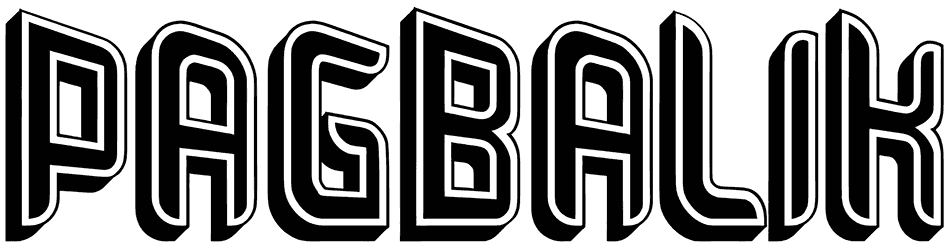
Pagbalik Font
If you are working on a unique modern design and need to bold your words but keep them humble, this 3D font with standing letters would be a nice option. Lowercase letters and most punctuation marks are not available, but it can remain a good pickup for the title of your automotive flyer design. Use the Pagbalik font to amp up your project and be salient.